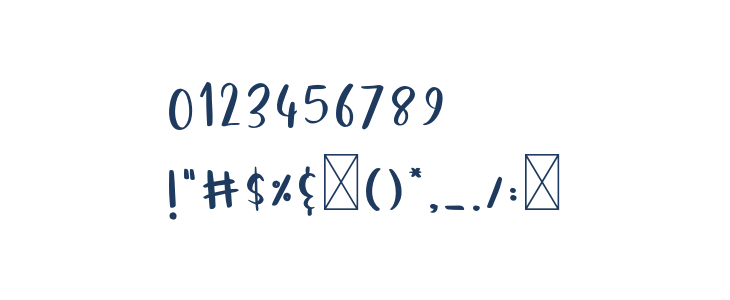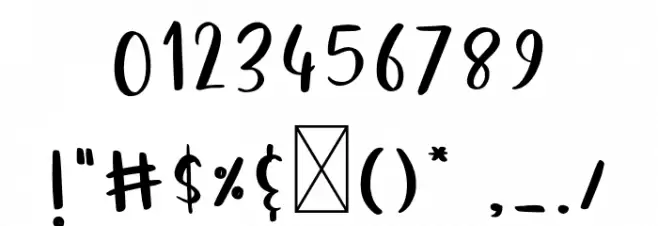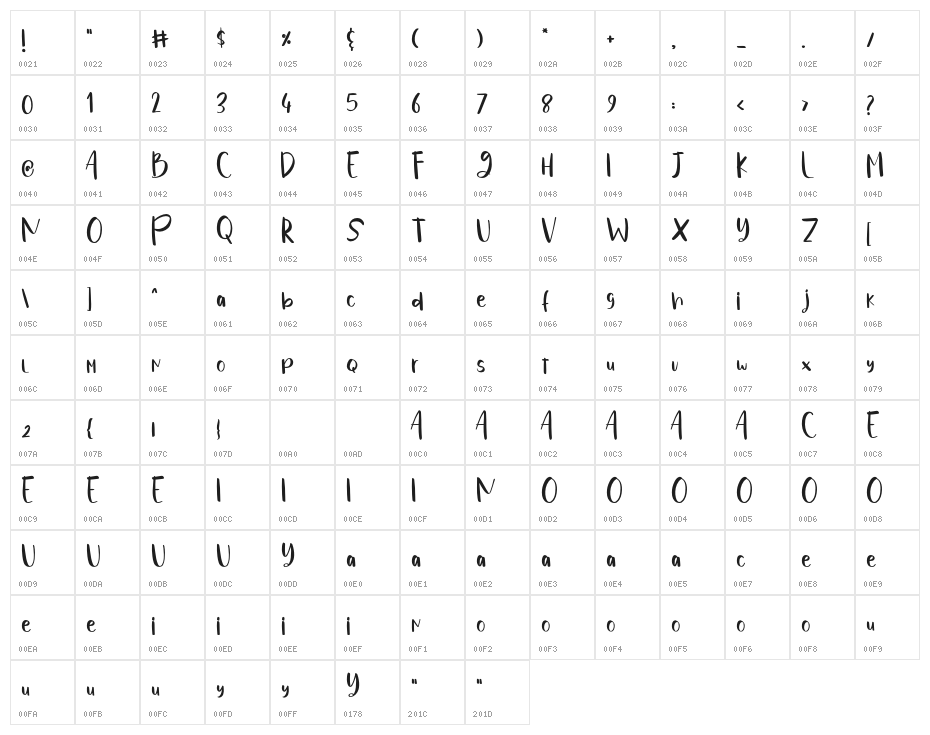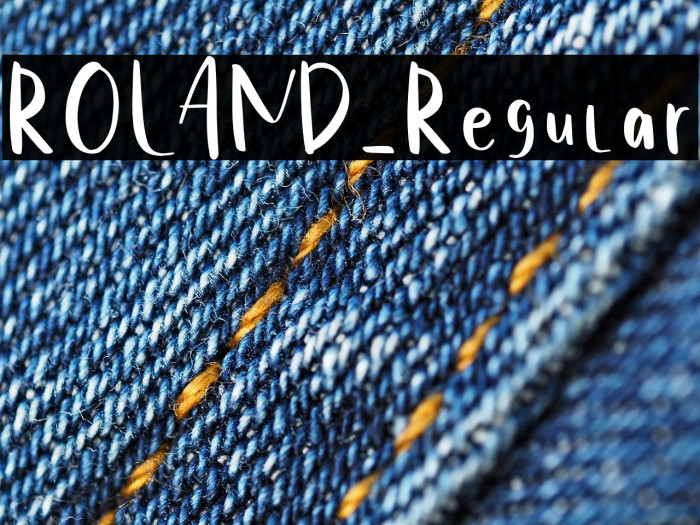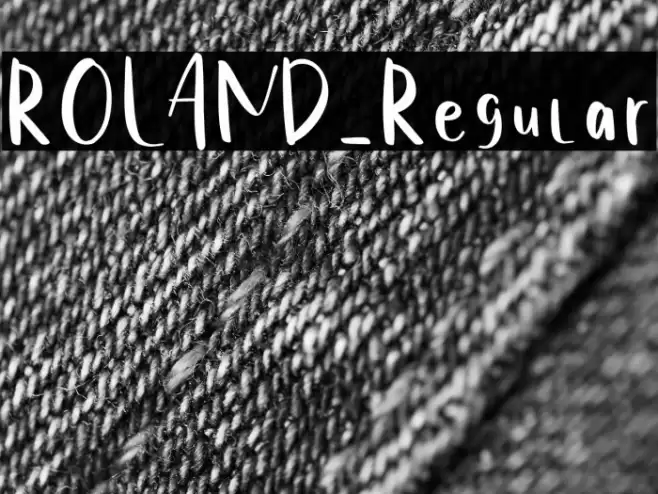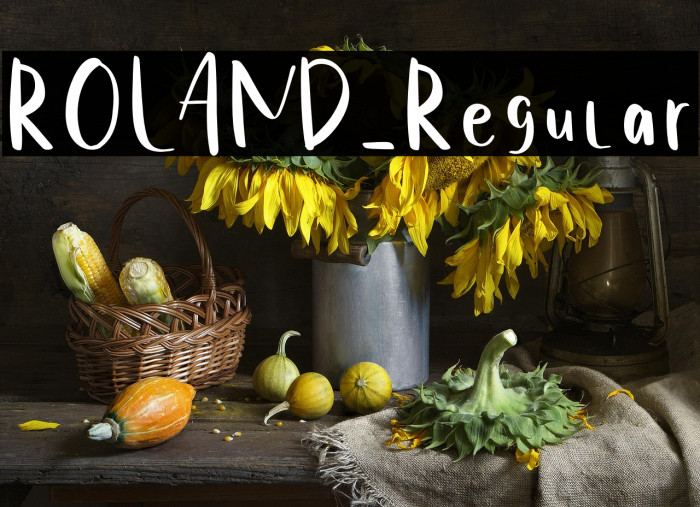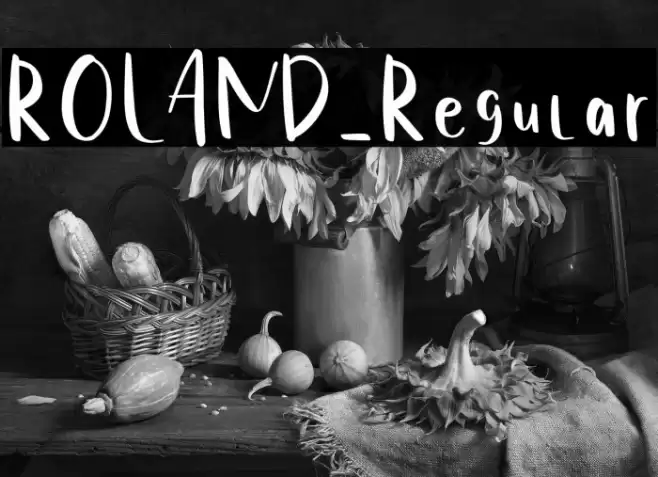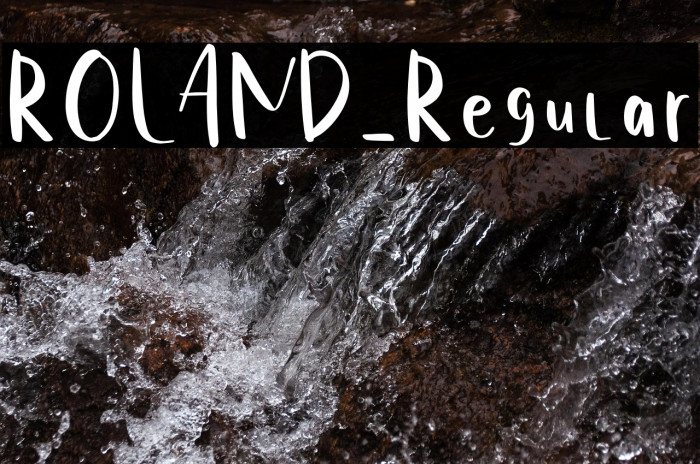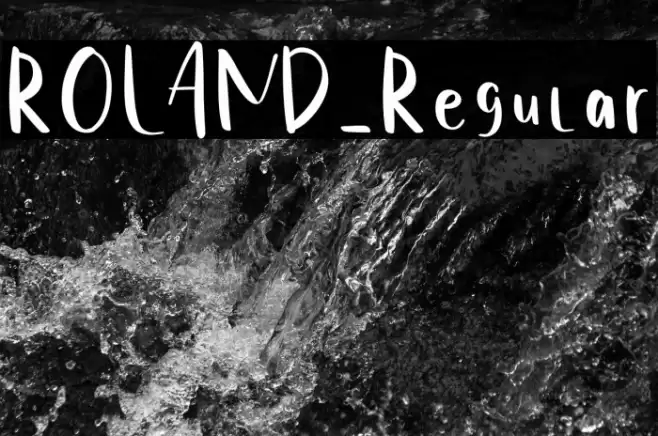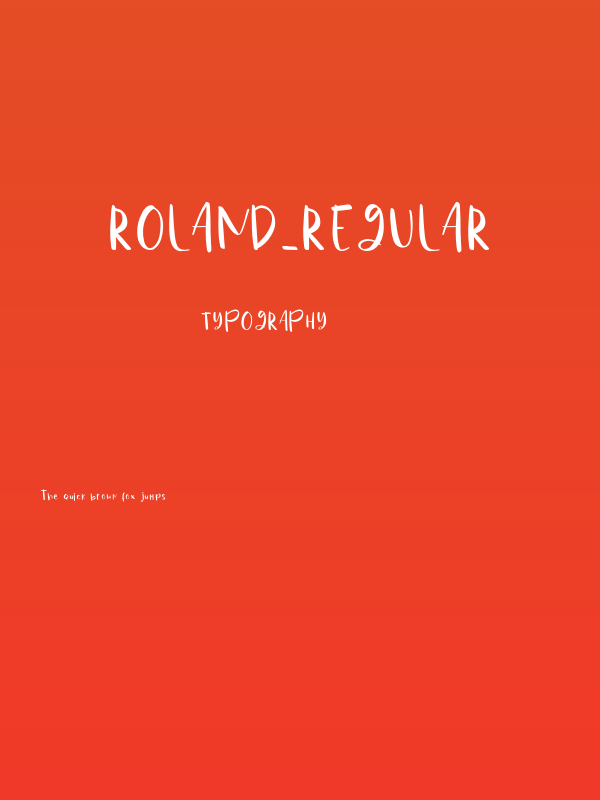
ROLAND-Regular Font
ROLAND-Regular Description
This font features a playful and casual handwritten style, characterized by its smooth, flowing curves and slightly irregular shapes that give it a personal touch. The uppercase letters are bold and prominent, while the lowercase letters maintain a consistent style with a slightly more relaxed appearance. The numerals are clear and easy to read, matching the overall aesthetic of the font. Special characters are included, maintaining the same whimsical style. This font is ideal for projects that require a friendly and approachable look.
Overall StyleCasual, Playful
Use CaseHeadlines, Logos, Informal Text
Proposed ProjectsPerfect for greeting cards, invitations, personal branding, and social media graphics.